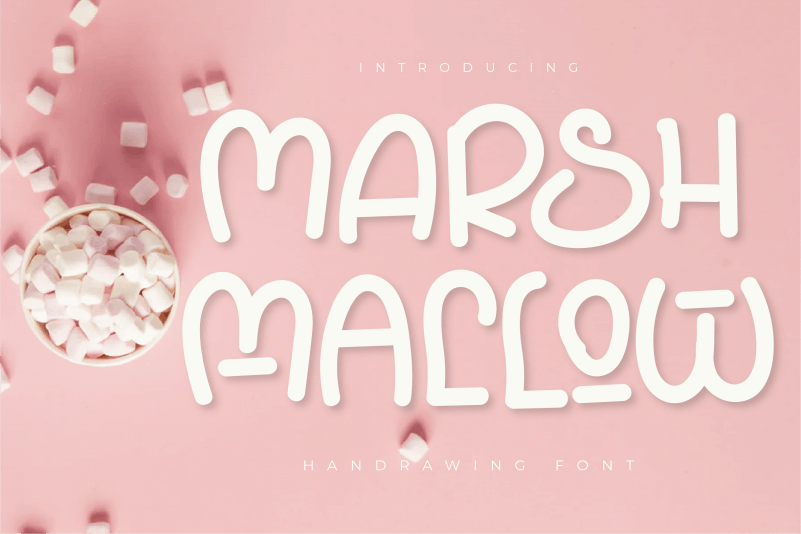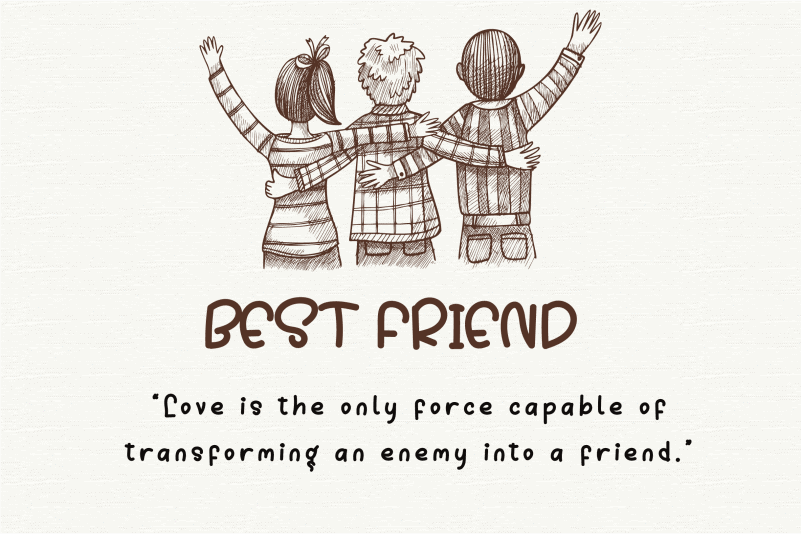
Marshmallow Display Font
Marshmallow Display Font is a cute and quirky display font. It will add an incredibly joyful touch to your designs. Add this beautiful display font to each of your creative ideas and notice how it makes them stand out!